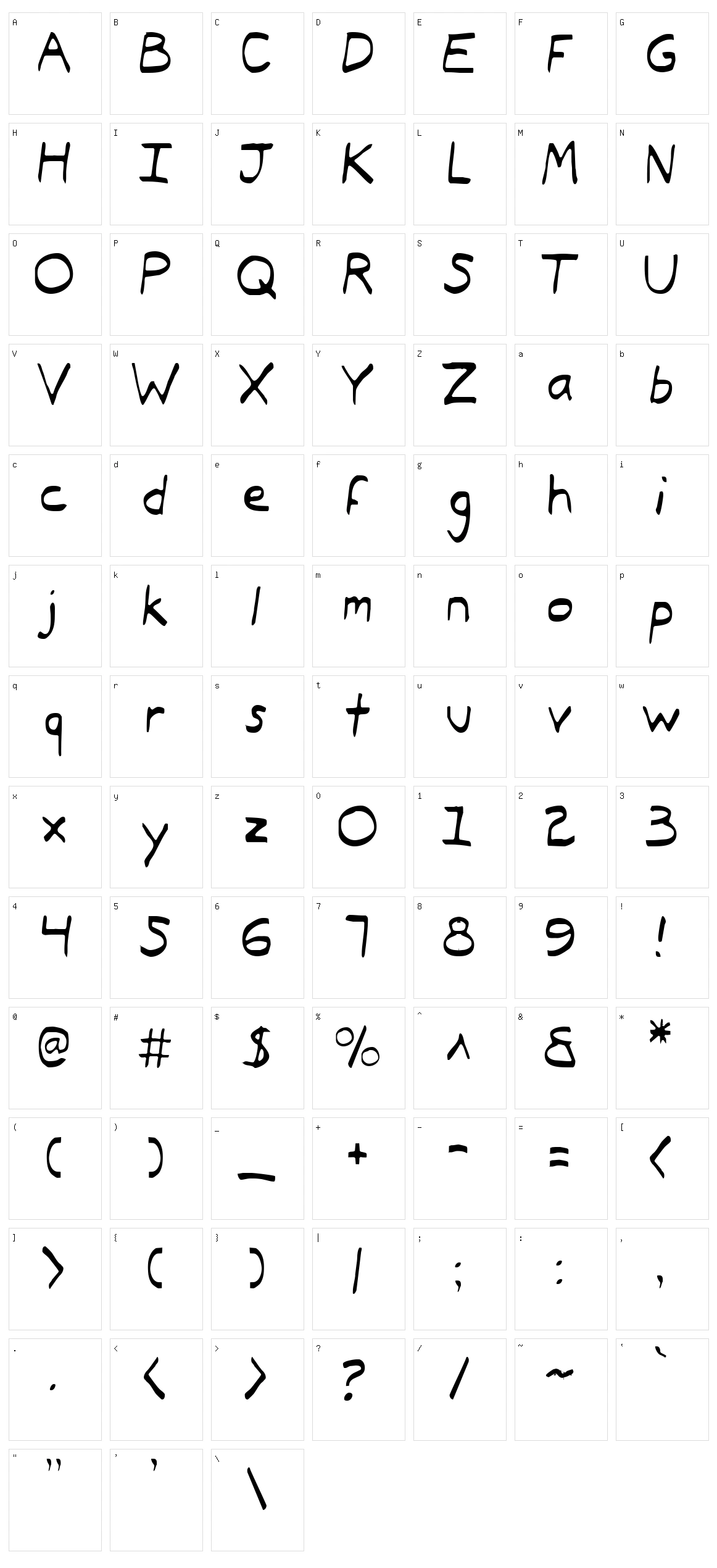
The free font Typeecanoe is carefully designed by Iconian Fonts, showcasing a thoughtful balance of creativity and usability and falls under the Script font style. When you download the ZIP file, it contains only 89.21 KB of font files, making it lightweight and quick to download. Please review the license details below to understand permitted usage and distribution rights. If license information is not available, we recommend using this font for personal projects only or contacting the author directly for commercial usage permissions.
This font comes with the following 2 versions: Regular and Light.